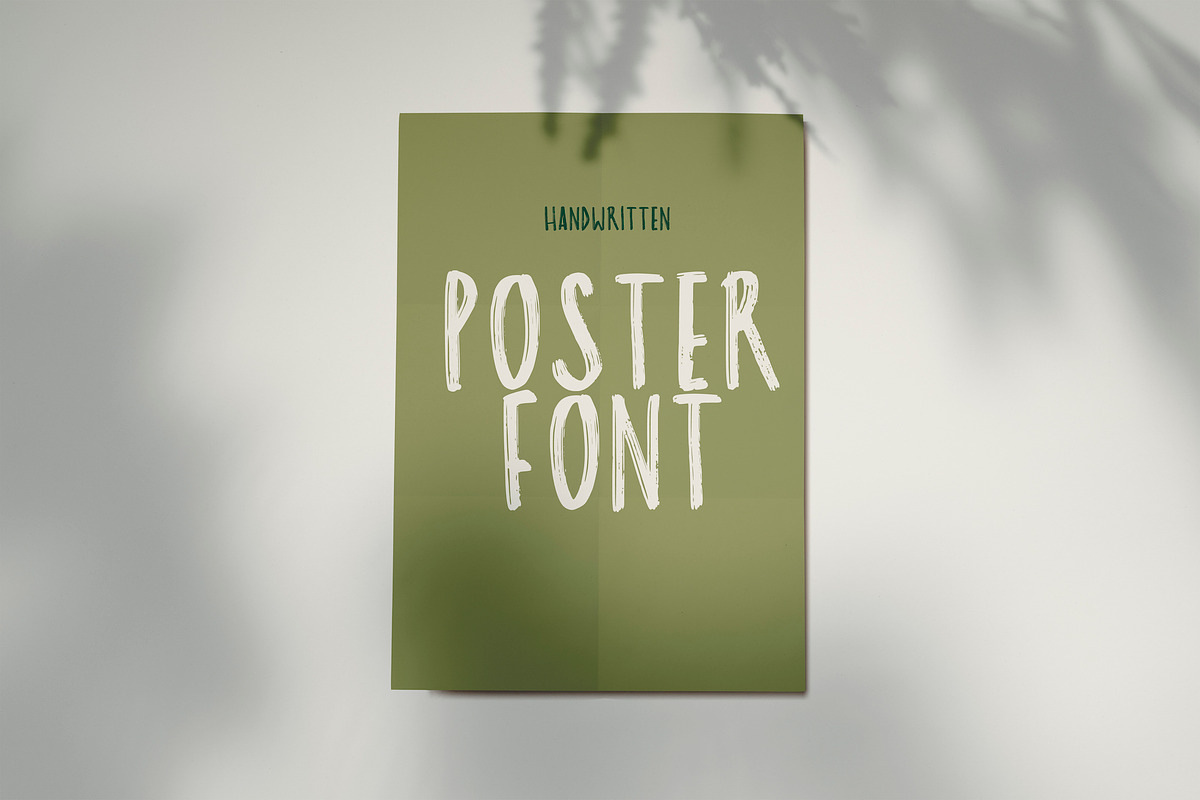
Poster Brush font
all caps handwritten font
Why Poster Brush font is worth a look
Poster Brush font by dxxb studio fits naturally into Branding, posters, packaging, typography.